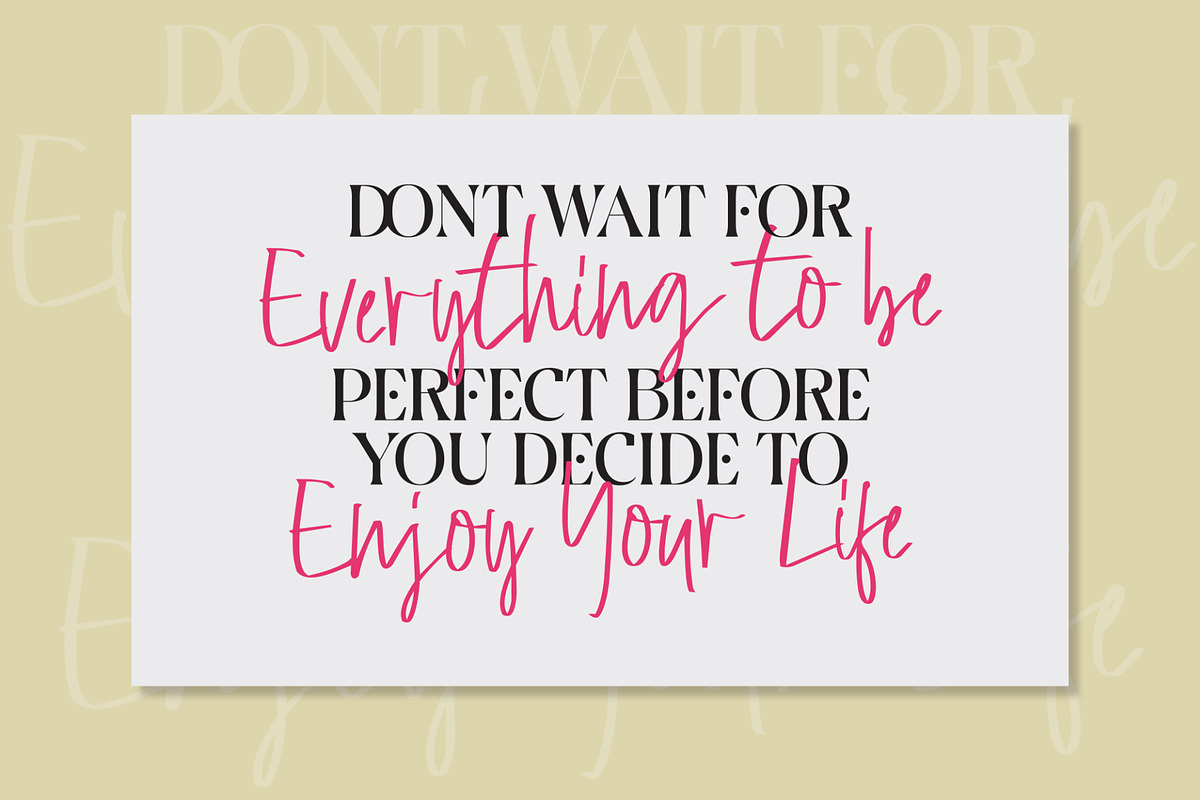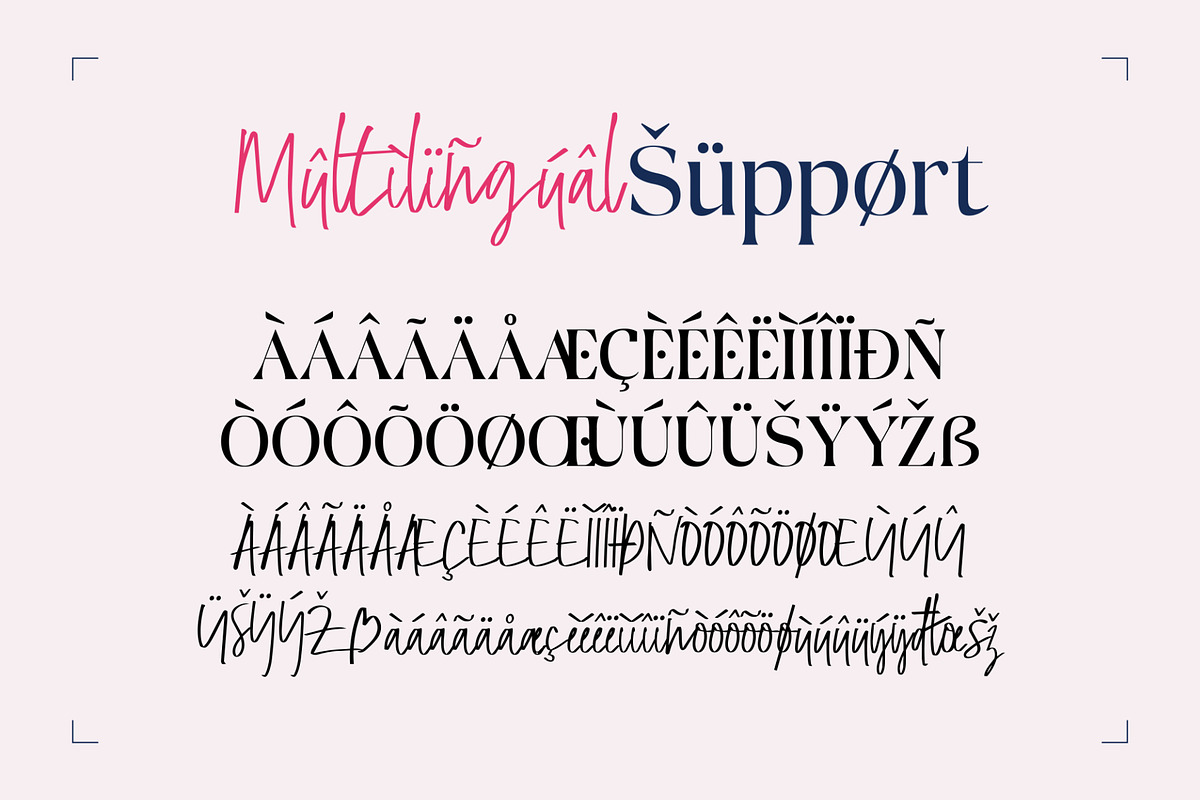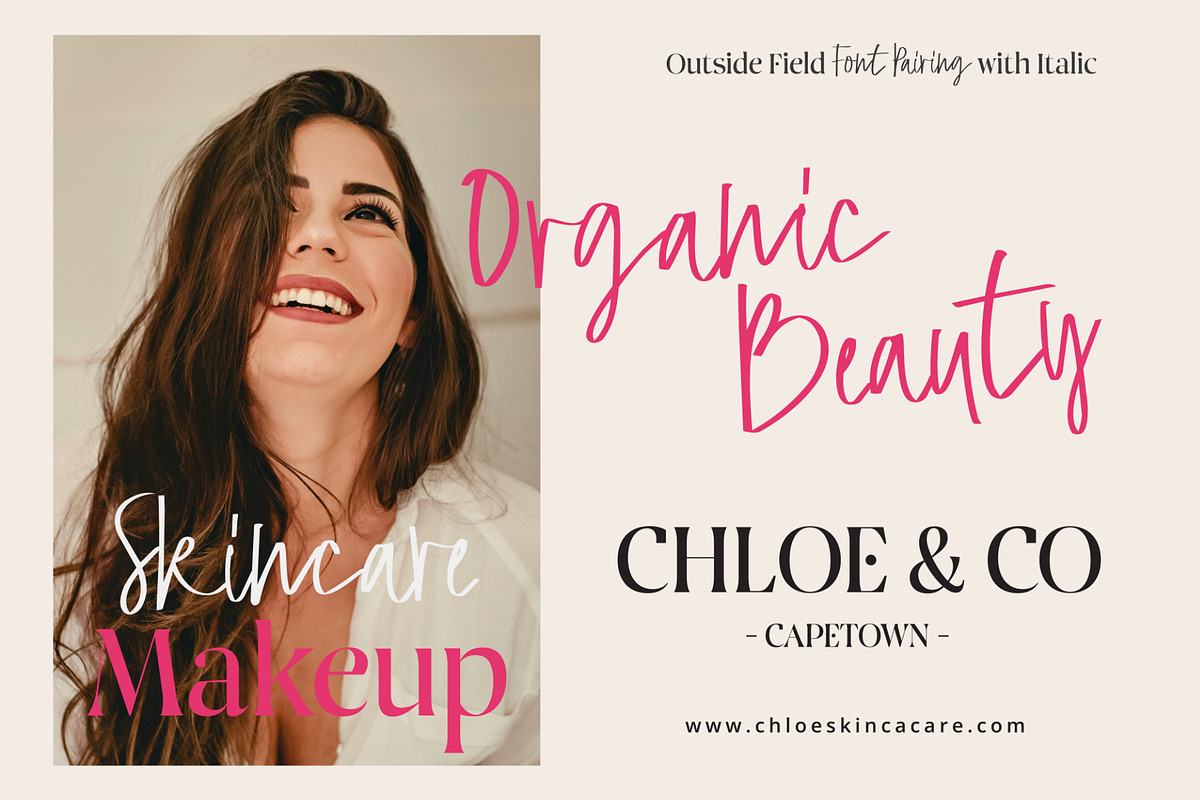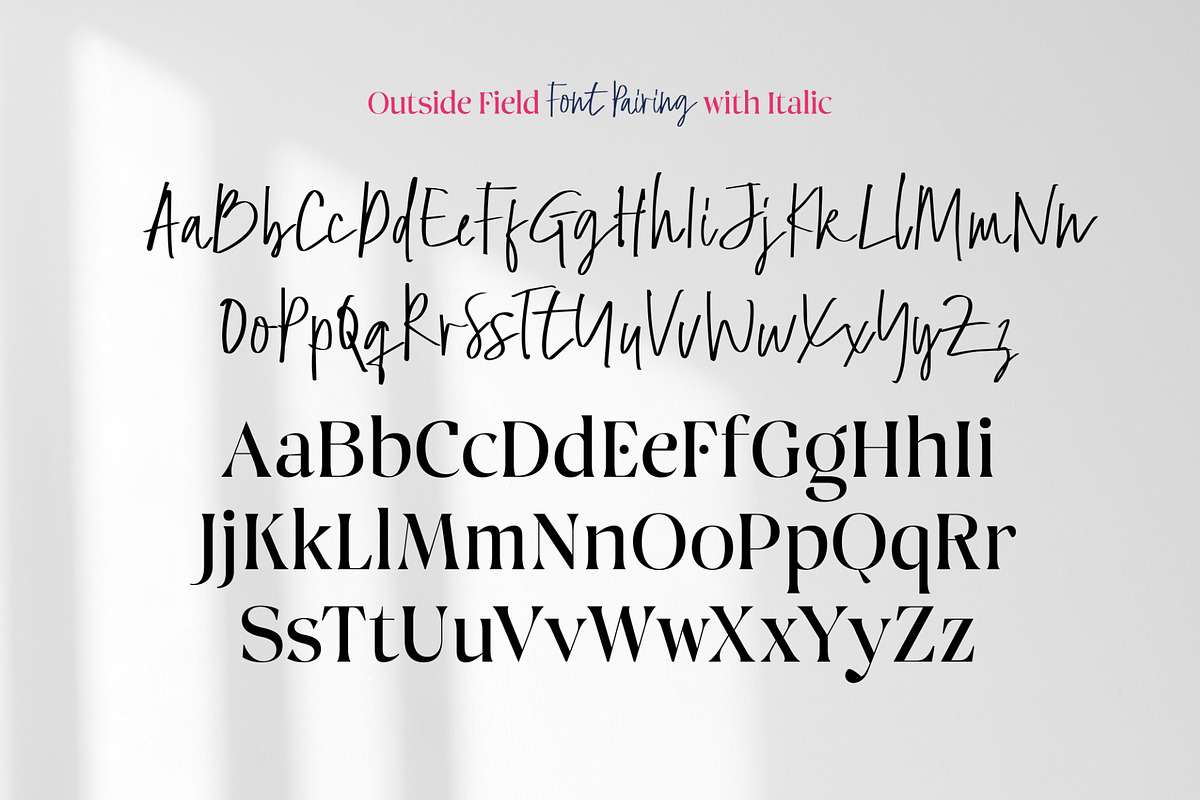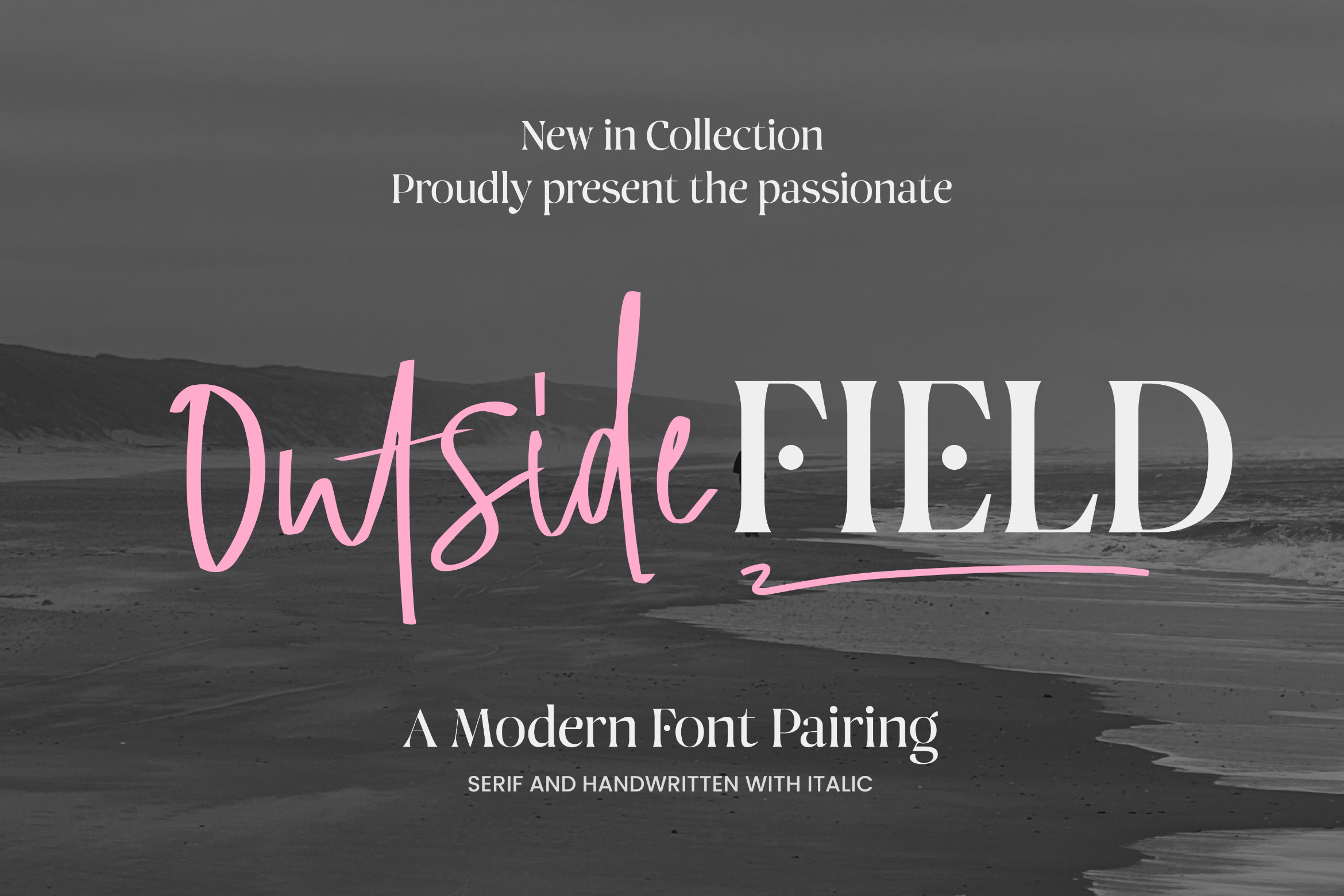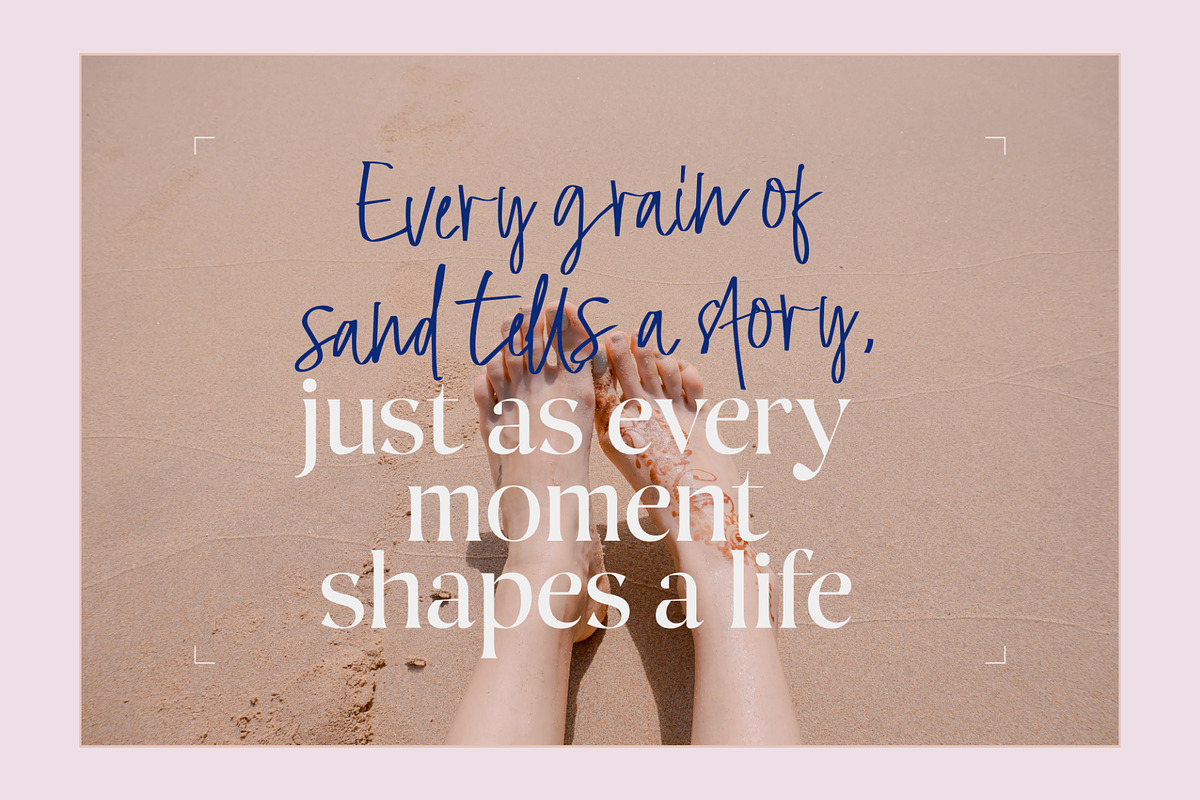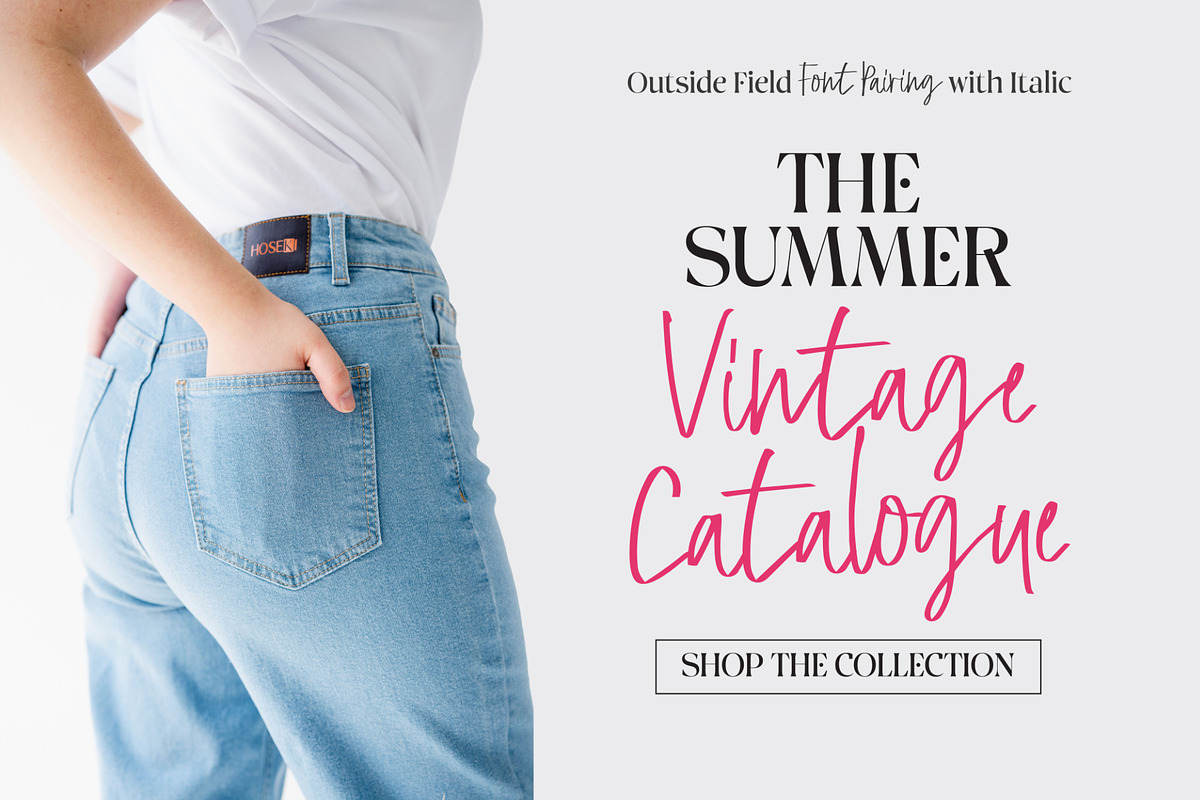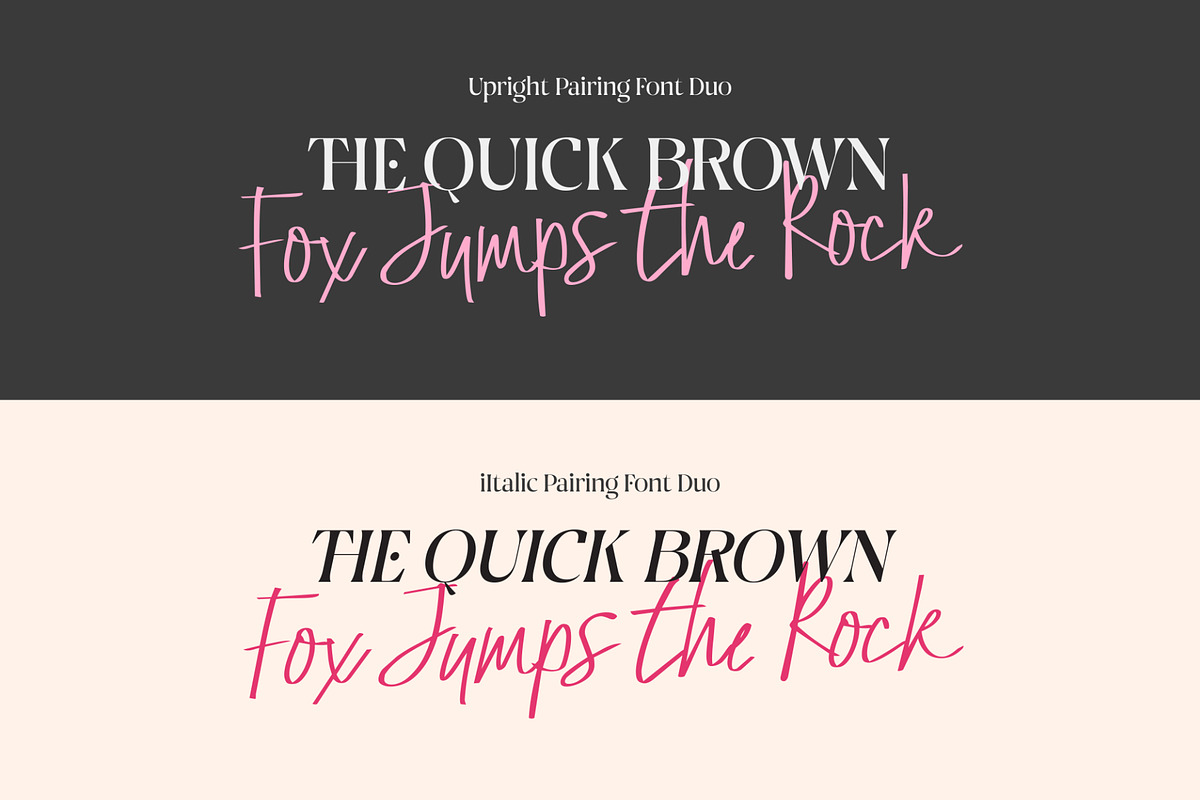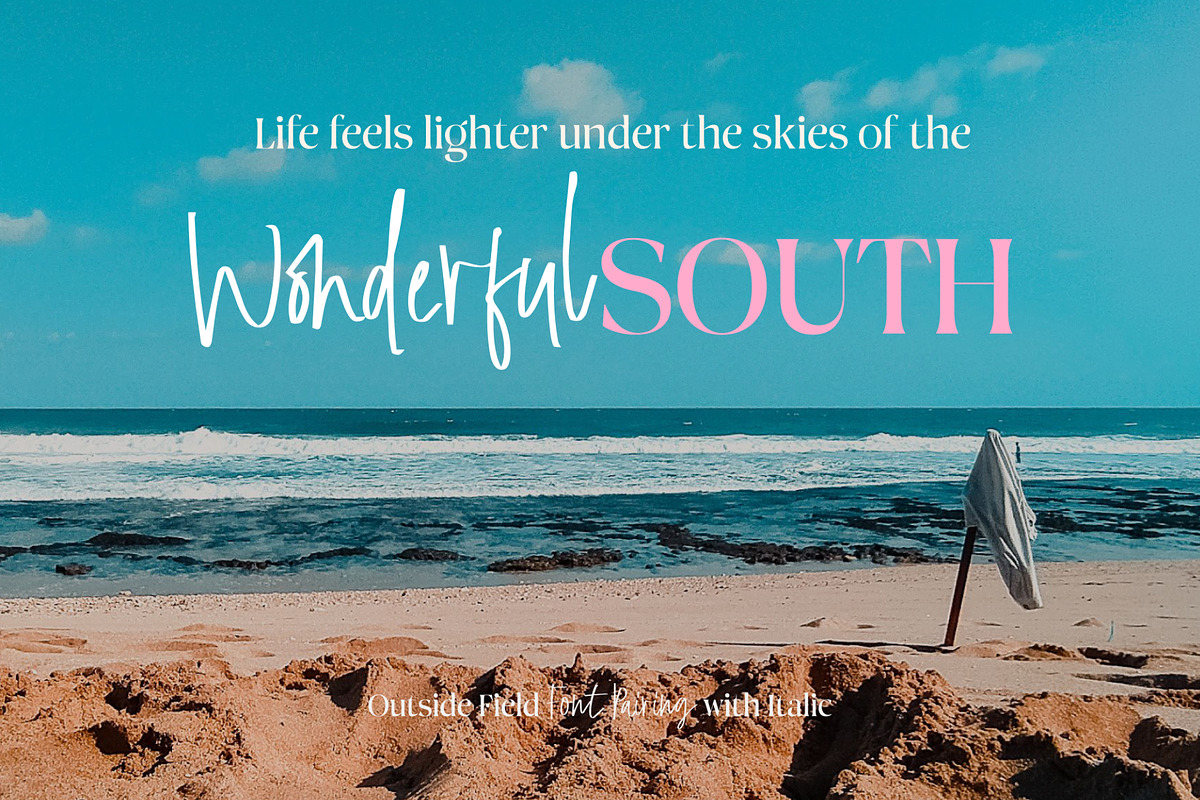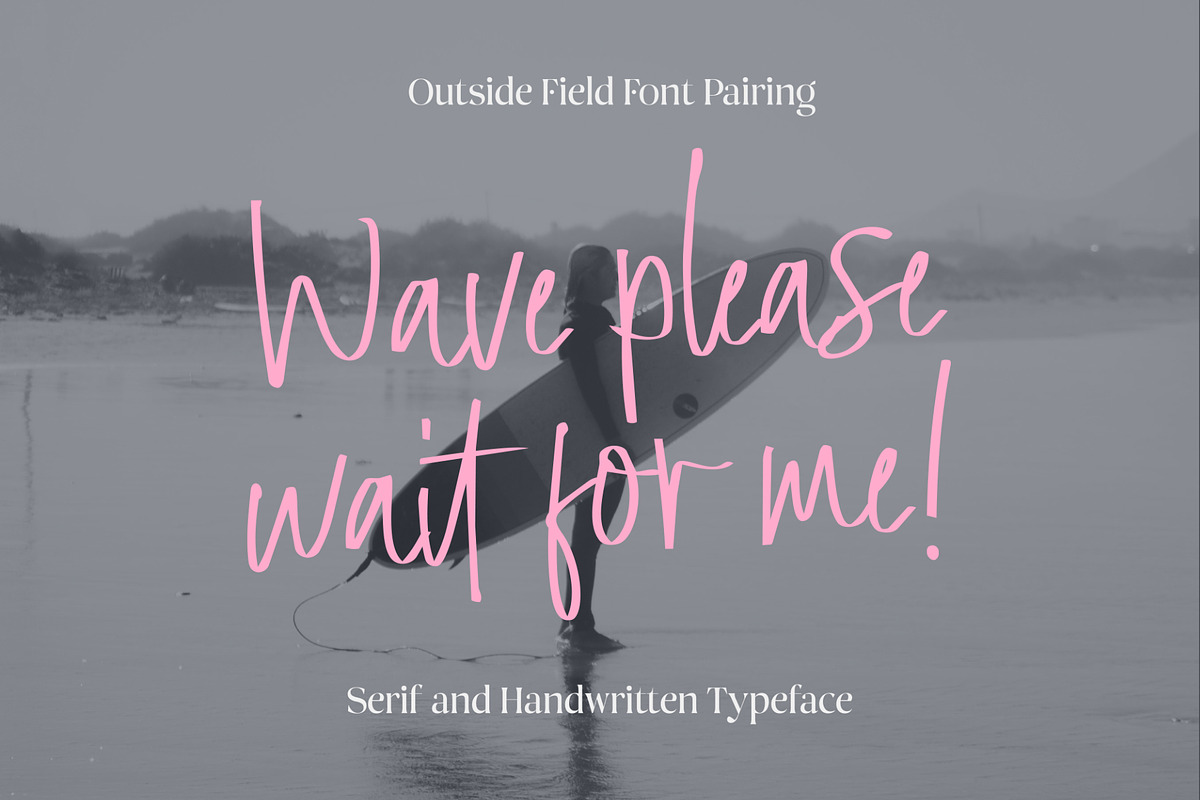
Outside Field - Font Pairing
Hello everyone, I would like to introduce Backbone Typeface Font Pairing, a modern and stylish handwritten and Serif font.
Backbone Typeface can be used for a variety of projects such as branding, labels, photography, invitations, stationery, wedding designs, social media posts, advertising, product packaging, product design, and more.